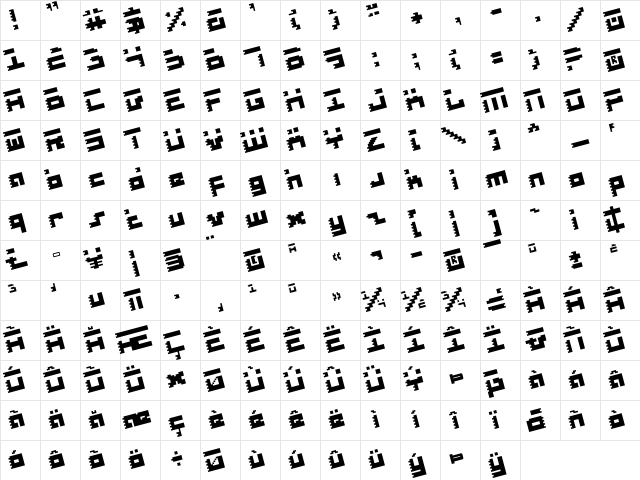
Roid Rage Rotate Rotate Free Font
Roid Rage Rotate Rotate
Style: Rotate
Design Context for Roid Rage Rotate
Roid Rage Rotate is a composed and adaptable typeface that performs quietly and consistently across a wide range of design contexts.
Pro Tip: Use Roid Rage Rotate in both headline and body roles to test its range before committing to a single application.